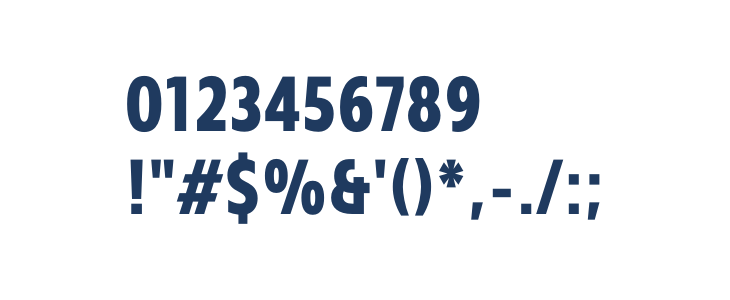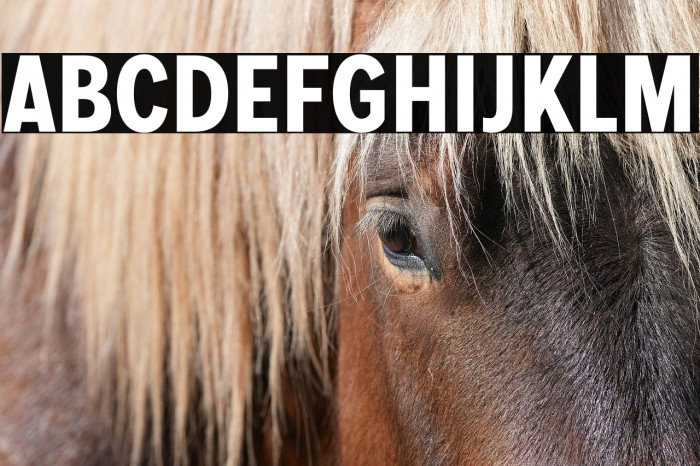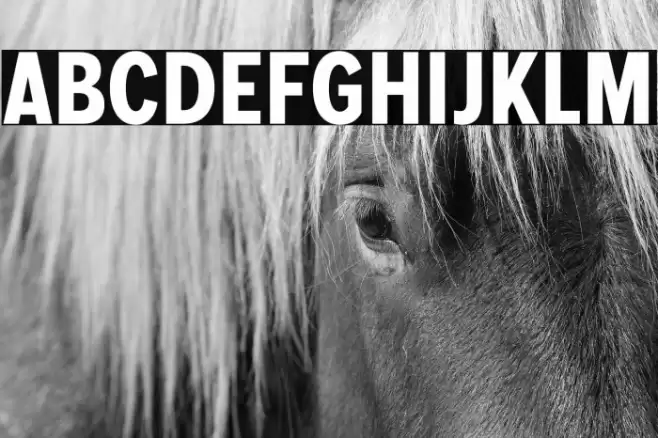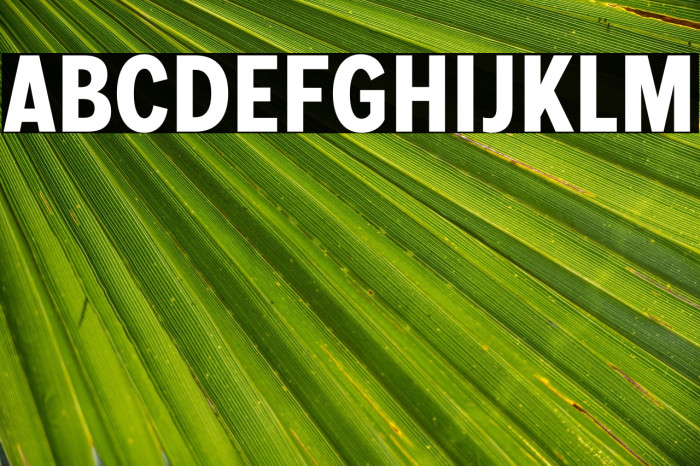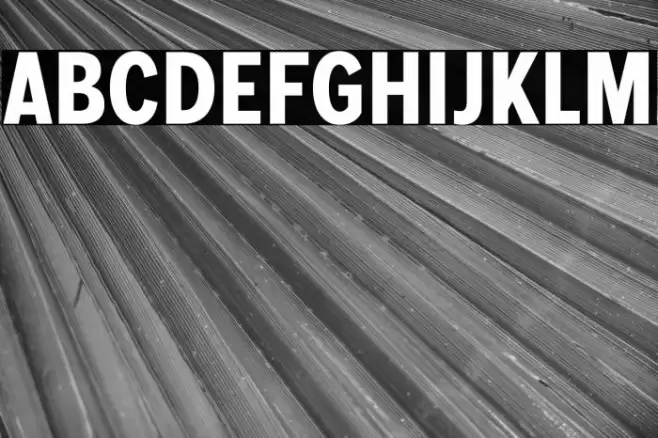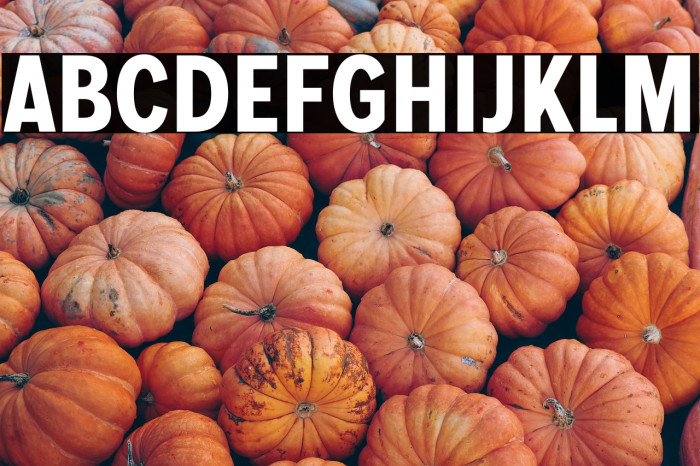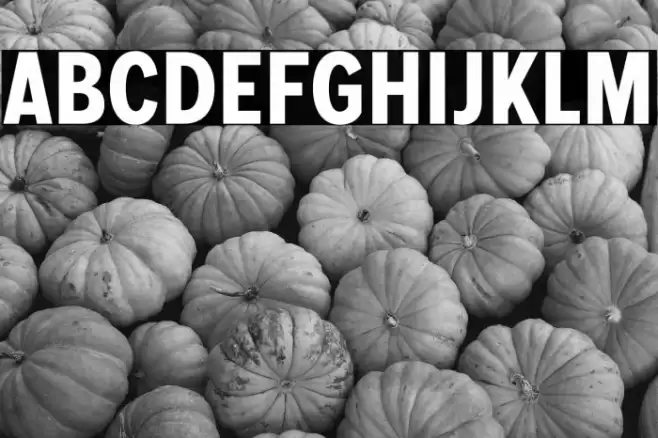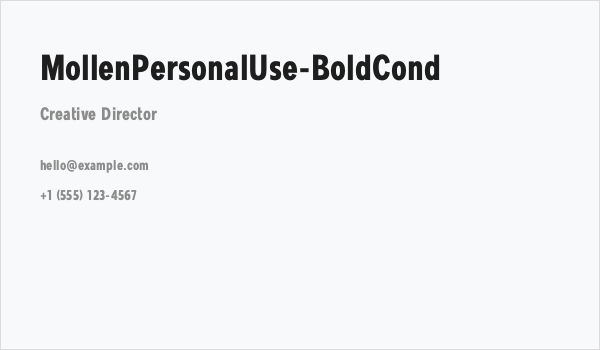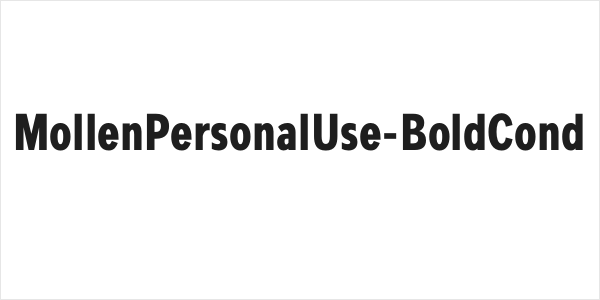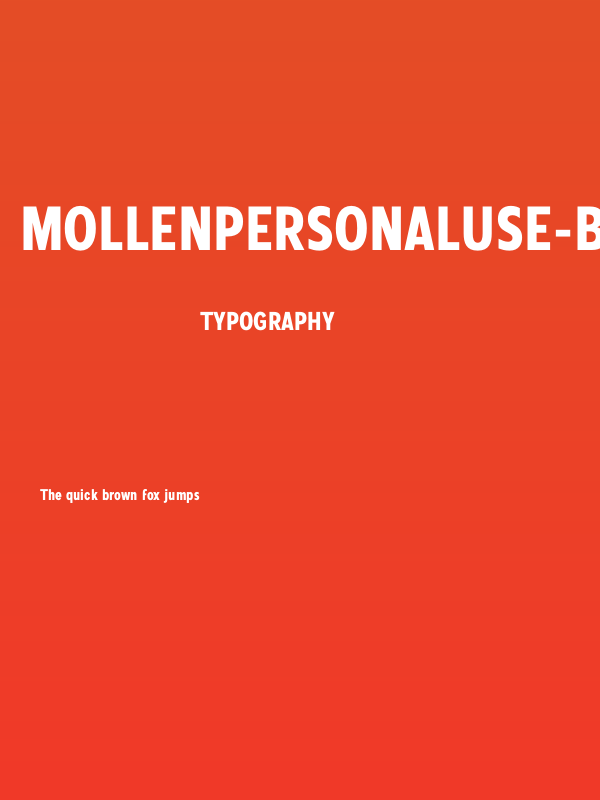
MollenPersonalUse-BoldCond Font
MollenPersonalUse-BoldCond Description
This bold, sans-serif font features strong, thick strokes that convey a sense of power and clarity. The characters are uniformly bold, with a consistent weight that makes them stand out prominently. The uppercase and lowercase letters are well-proportioned, maintaining a cohesive look across the alphabet. The numbers are equally bold, ensuring readability and impact. Special characters are designed to match the overall boldness, making them suitable for various applications. The font's condensed width allows for efficient use of space, making it ideal for headlines or titles where impact is essential.